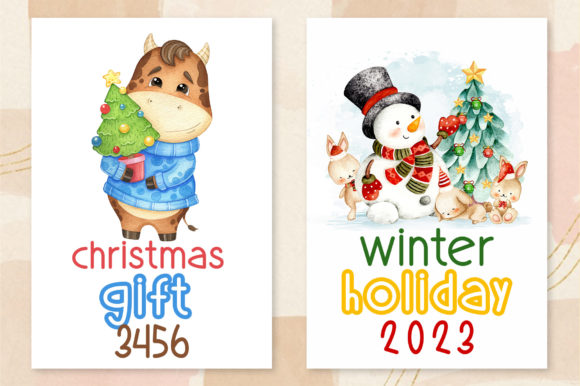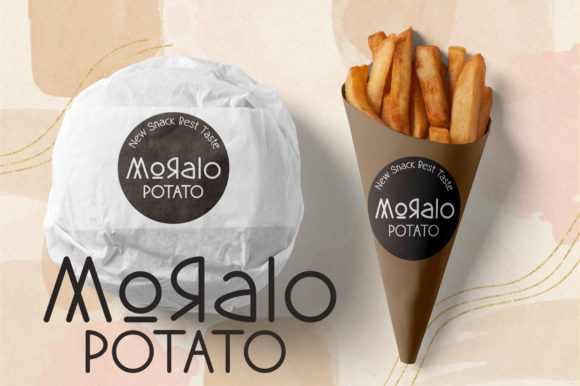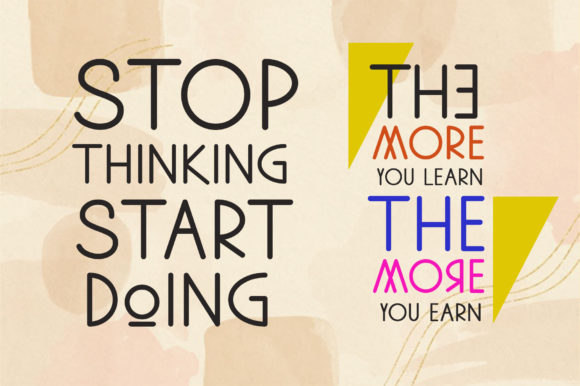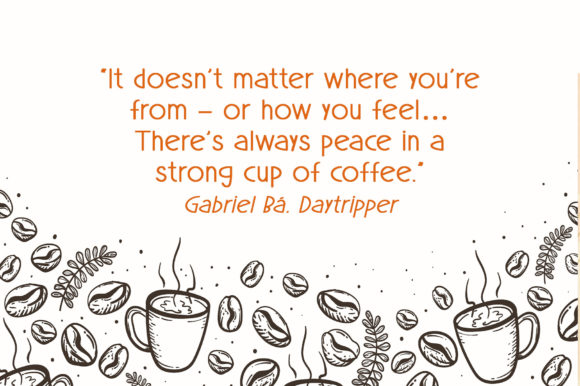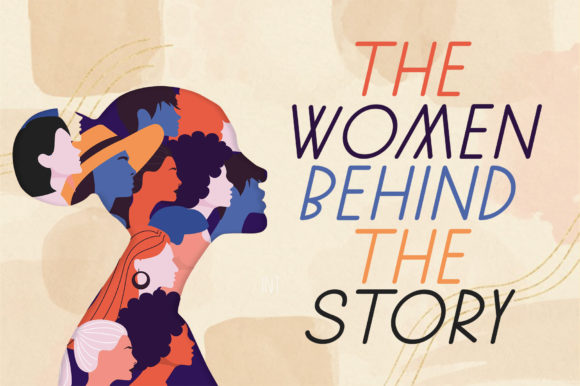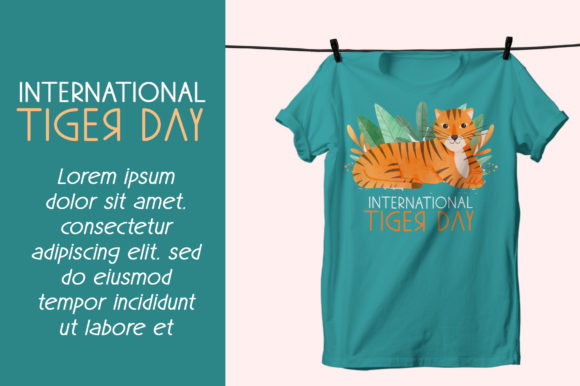
Introduction to Lucky Dori Font
Lucky Dori is a simple and neat display font.
It is the best choice for creating eye catching logos, branding and quotes This font is PUA encoded which means you can access all of the glyphs and swashes with ease.
Lucky Dori Font offers exceptional quality and versatility, making it a valuable addition to your design toolkit. Whether you’re creating for personal projects or commercial use, Lucky Dori Font delivers professional results.